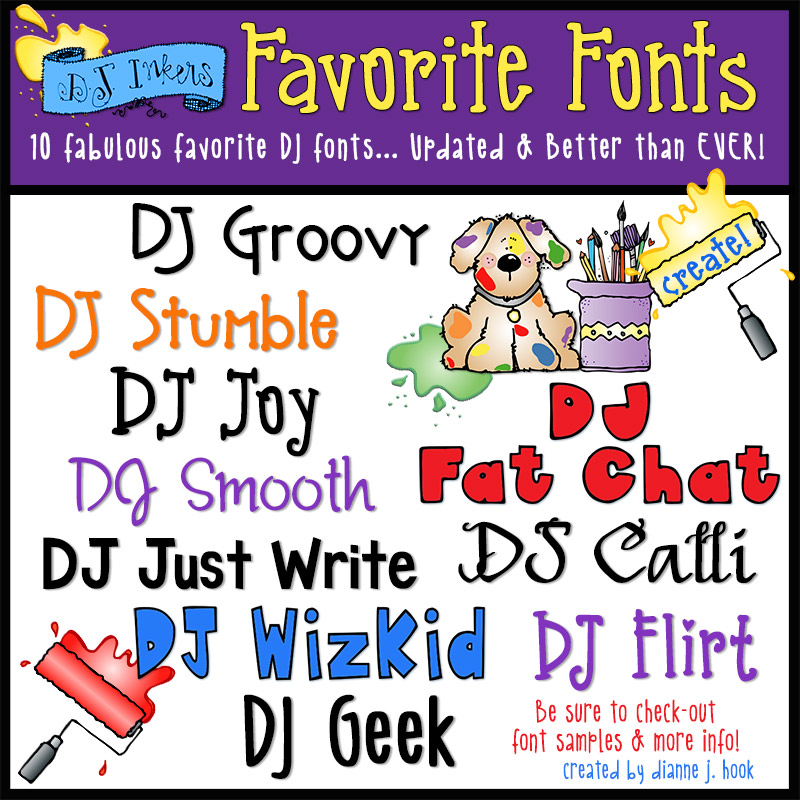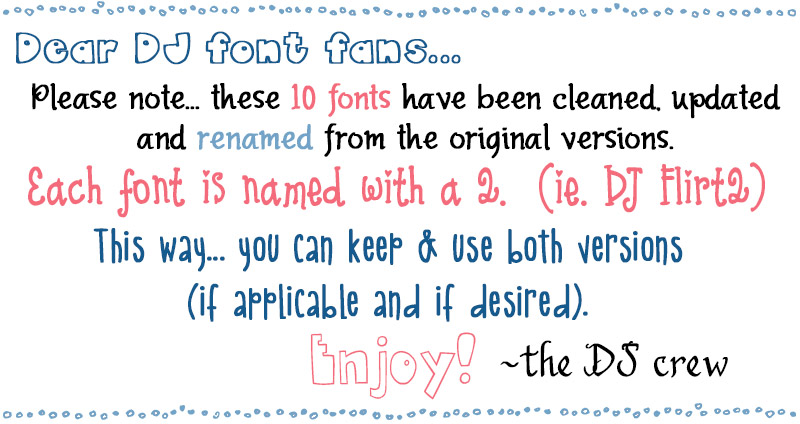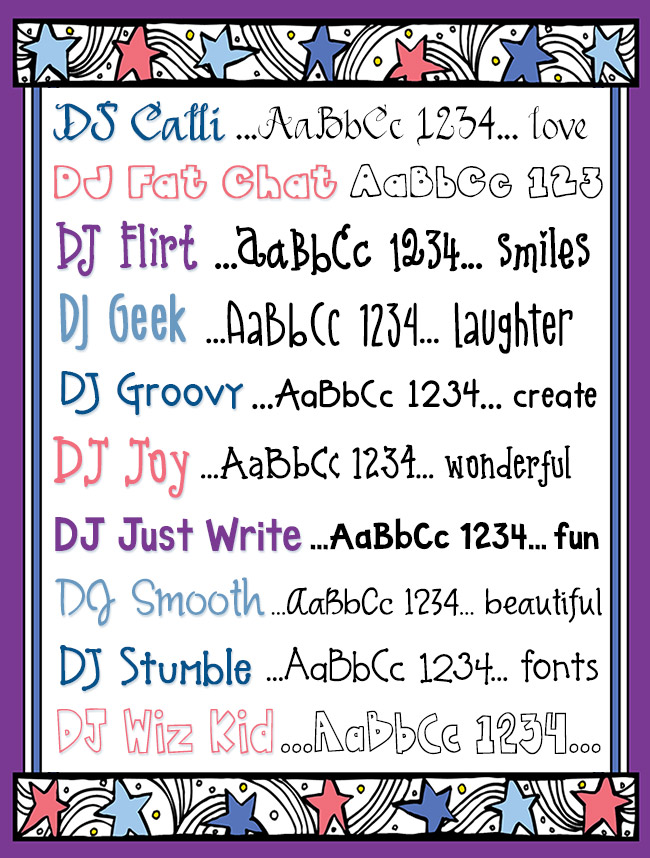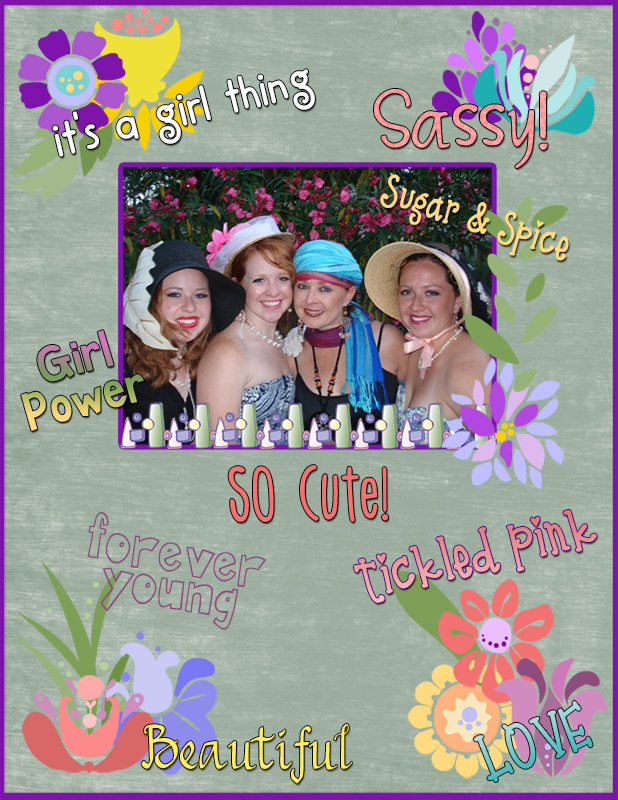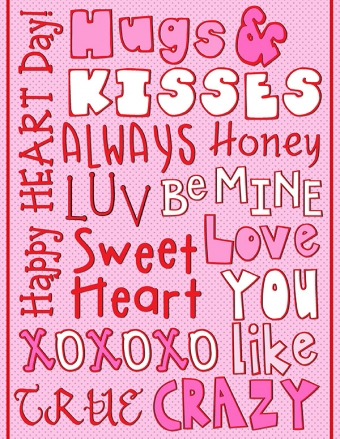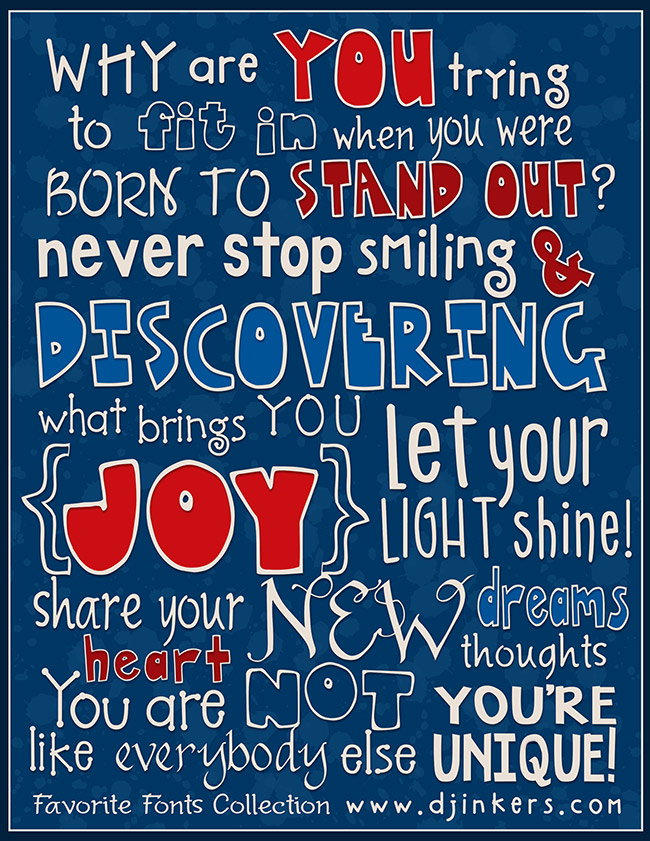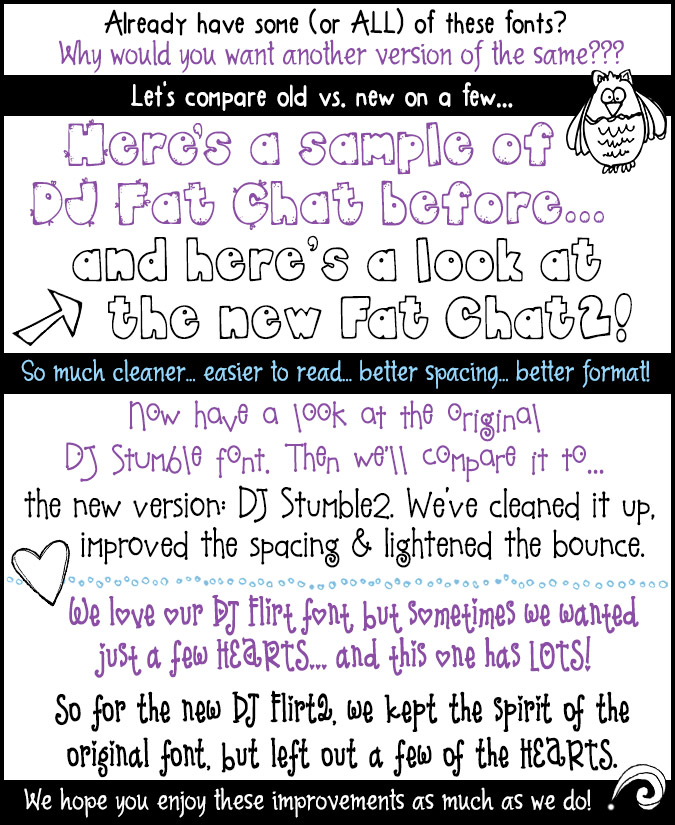
You'll love creating with this awesome collection of DJ's Favorite Fonts! By popular request, we have selected 10 of our very best fonts, then cleaned & updated them to perfection. You'll find everything from cute to classy in this versatile collection of unique, hand-drawn lettering. (djdf118)
Download includes: DJ Calli, DJ Fat Chat, DJ Flirt, DJ Geek, DJ Groovy, DJ Joy, DJ Just Write, DJ Smooth, DJ Stumble and DJ Wiz Kid. Our fonts have been making people smile for over 25 years. Download our Favorite Fonts today & you'll see why! :)
Already have the originals? These are all labeled version 2, so you can keep the original version, if you like. See additional images for a side-by-side comparison and see what's changed.